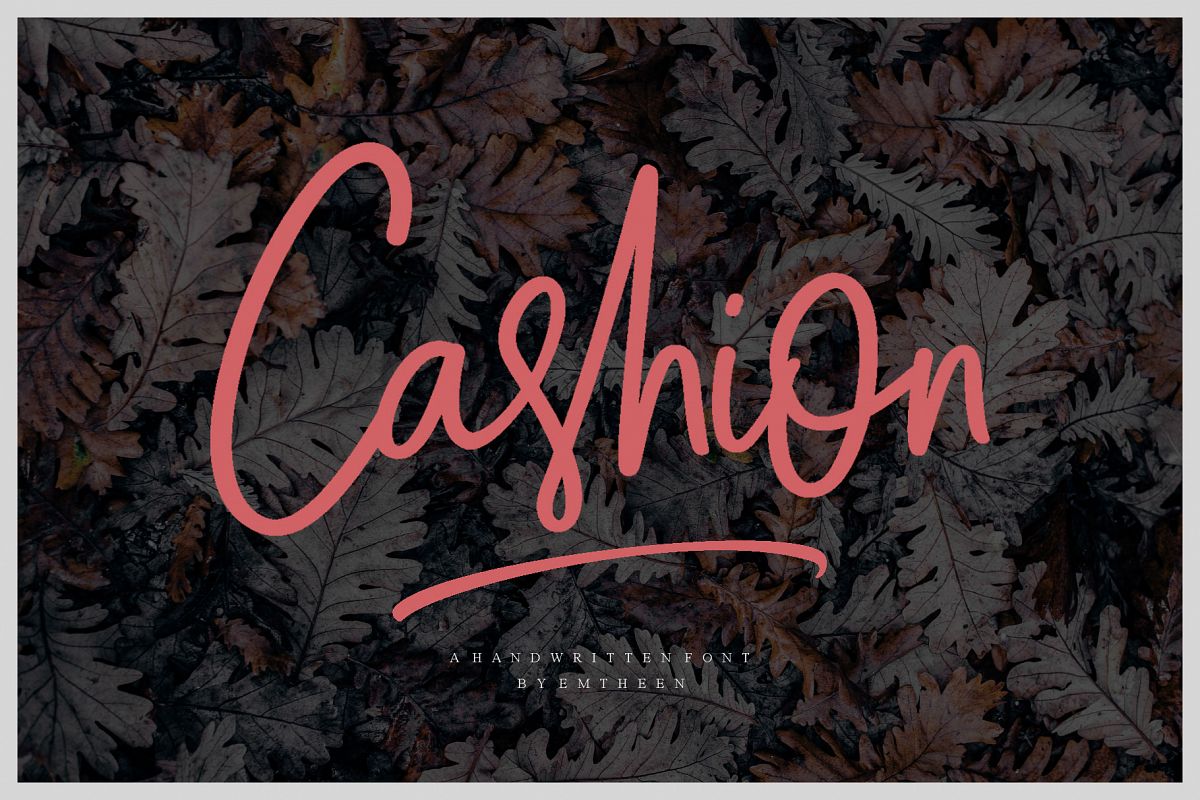
Cashion Script
Cashion Script Font is a handwritten font that contains Cashion Regular and Cashion Alt Regular. This font is made manually to make it look more real and elegant so it can be used in various media, this font will be more interesting if used for the theme of fashion because this font has a very nice wide shape in each letter and this font is also suitable for logotype, magazine, poster, product packaging, business cards and more
• Punctuation and Number
• Multilingual Language
• Alternates Character